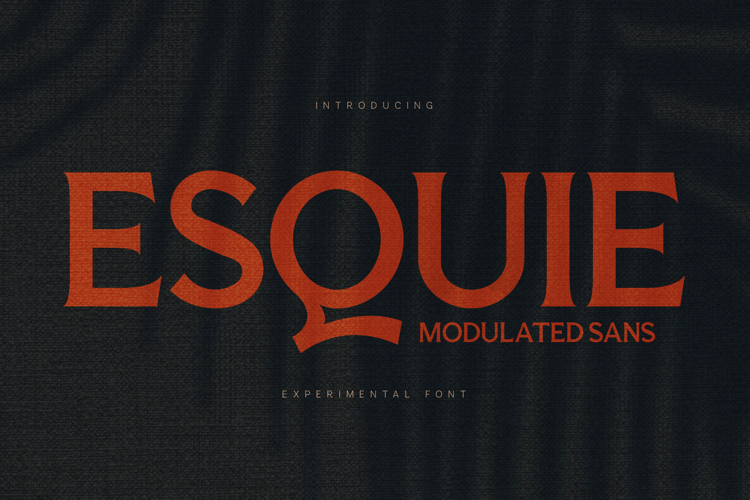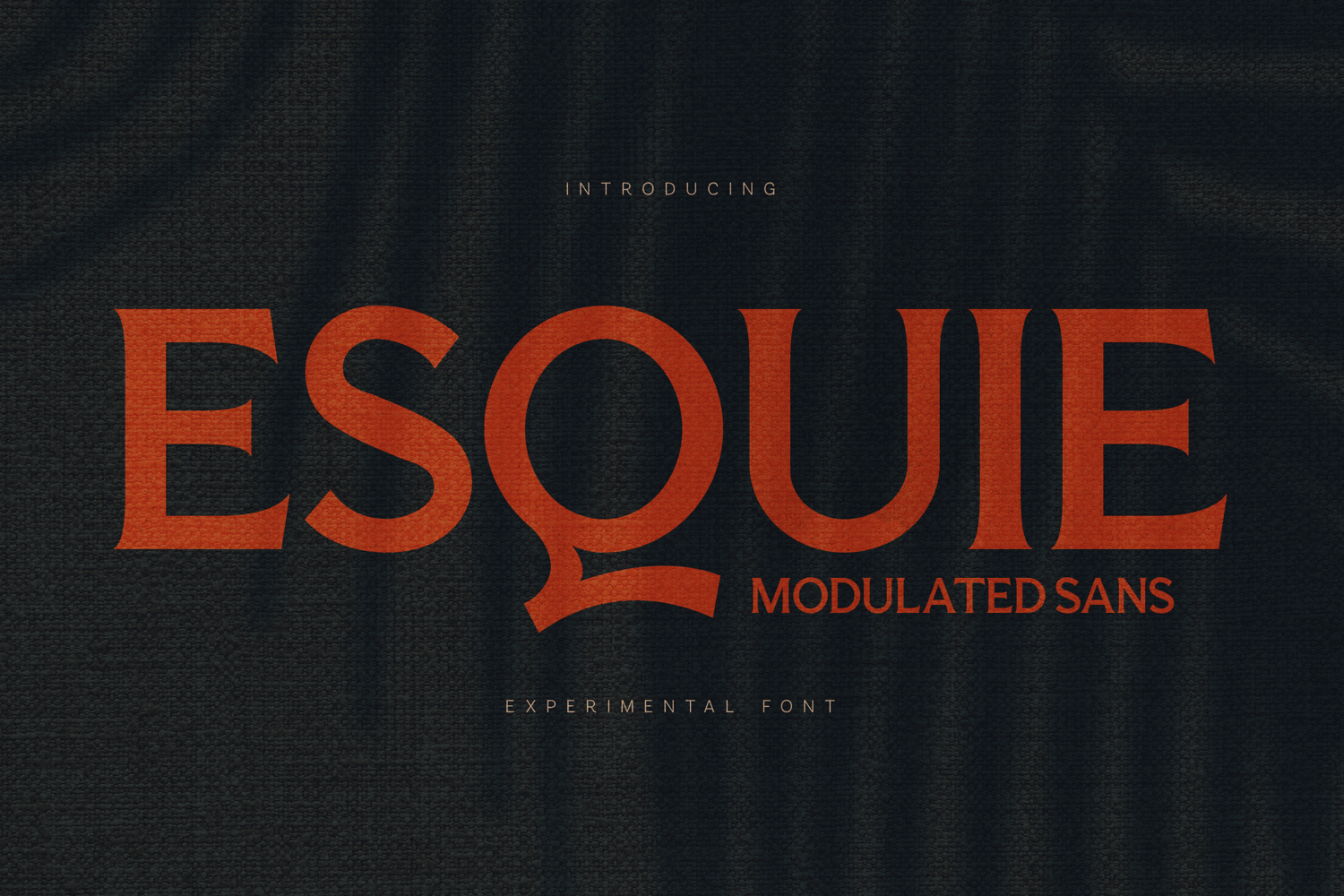
Esquie Modulated Sans
Esquie is an experimental modulated sans serif font designed to push contemporary typography beyond the ordinary. With bold shapes, dynamic stroke modulation, and expressive curves, Esquie delivers a strong visual impact while maintaining clarity and balance.
Ideal for posters, branding, editorial layouts, album covers, fashion design, and modern visual identities, Esquie brings a raw yet refined character to any creative project. Its distinctive construction makes it perfect for headlines, statements, and eye-catching typography where uniqueness matters.